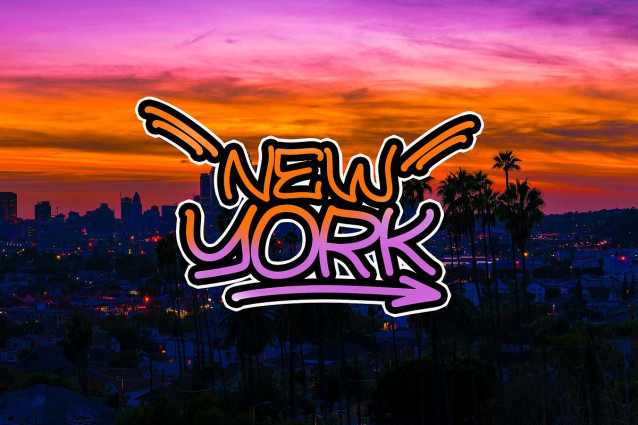
Amorad Graffiti Font
Amorad Graffiti Font is a bold graffiti font with a natural handbrush style, designed to add a fresh, urban edge to your designs. Its unique character shapes bring raw, expressive energy, making AMORAD perfect for logos, streetwear, posters, and any project needing a creative and impactful look.